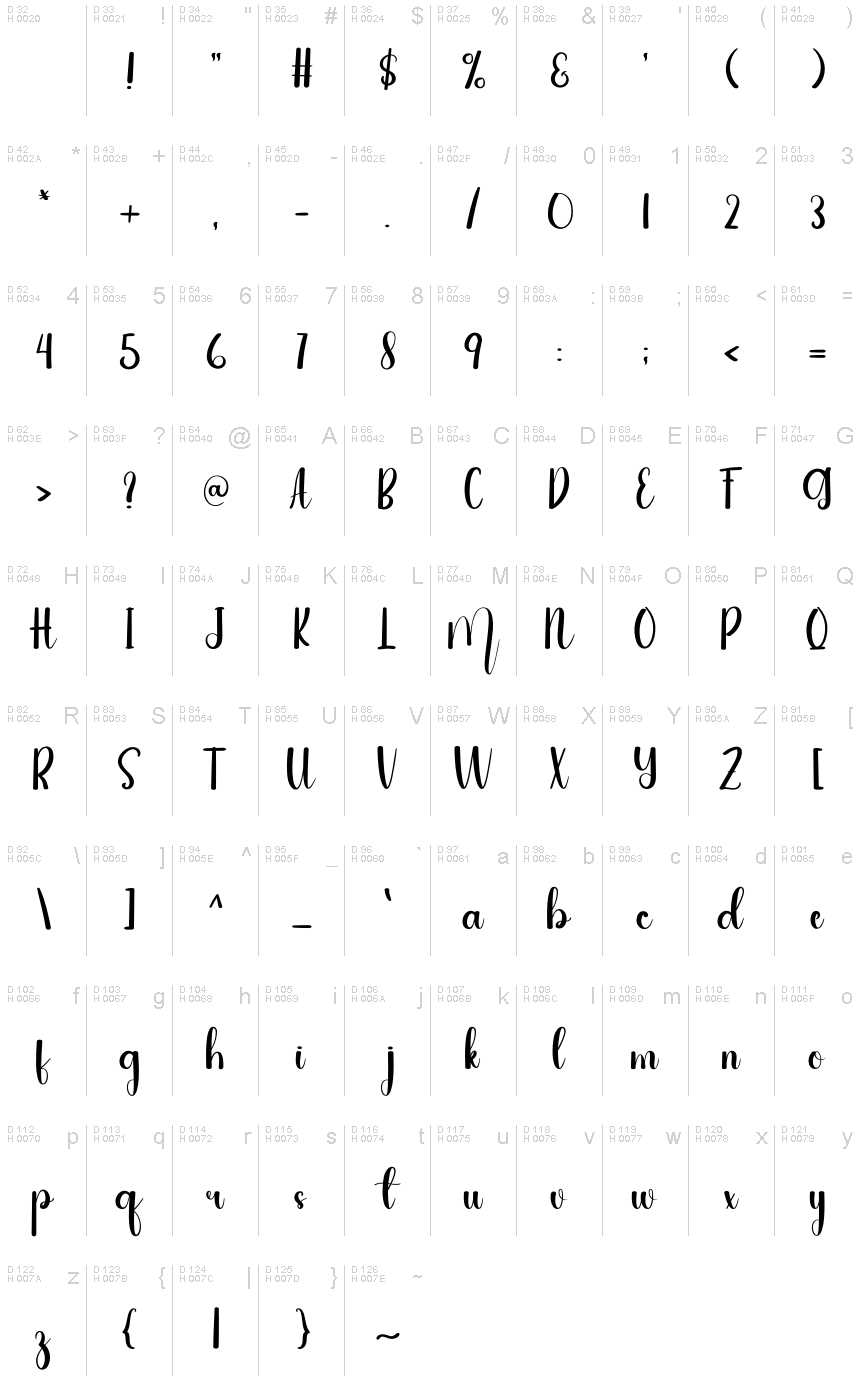
Monday Is Fun
Monday Is Fun font by One Design captures the lively essence of handwritten style with its condensed form. This free font exudes a playful and whimsical charm, making it perfect for adding a personal touch to your creative projects.
Its distinctive, fluid lines and dynamic curves make it ideal for invitations, posters, and social media graphics. The unique character of Monday Is Fun makes it a versatile choice for designers seeking to inject personality into their work.